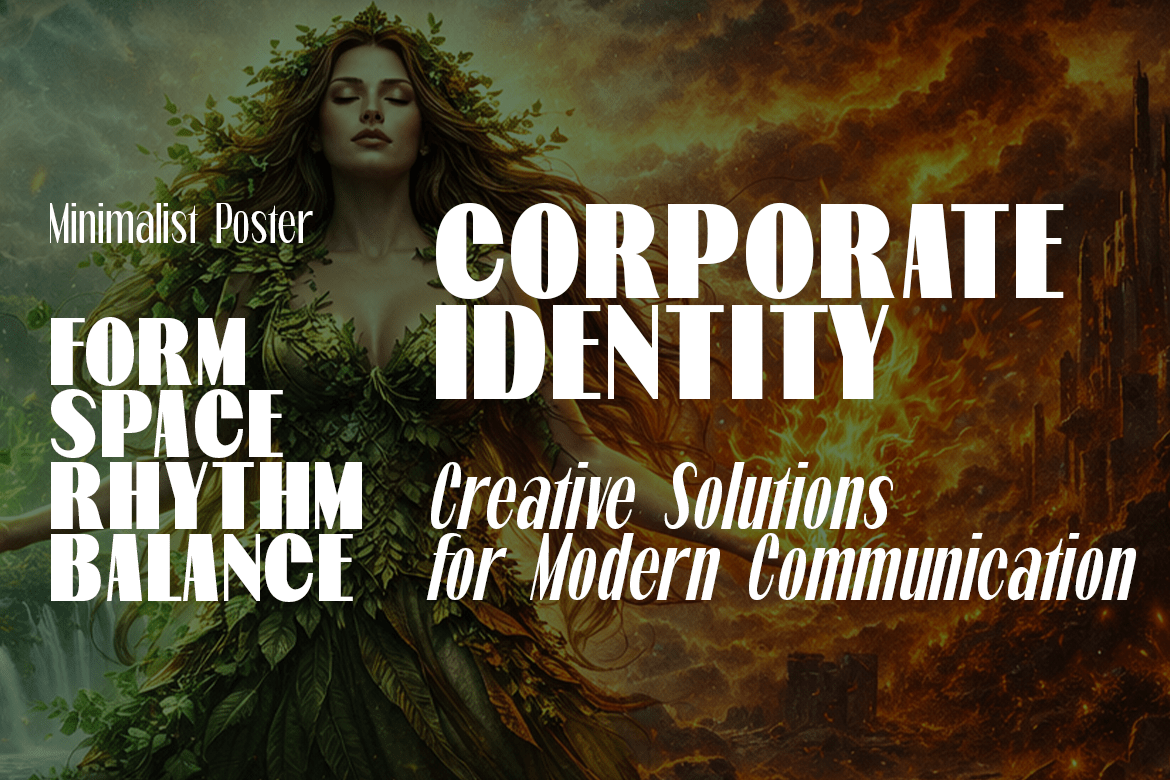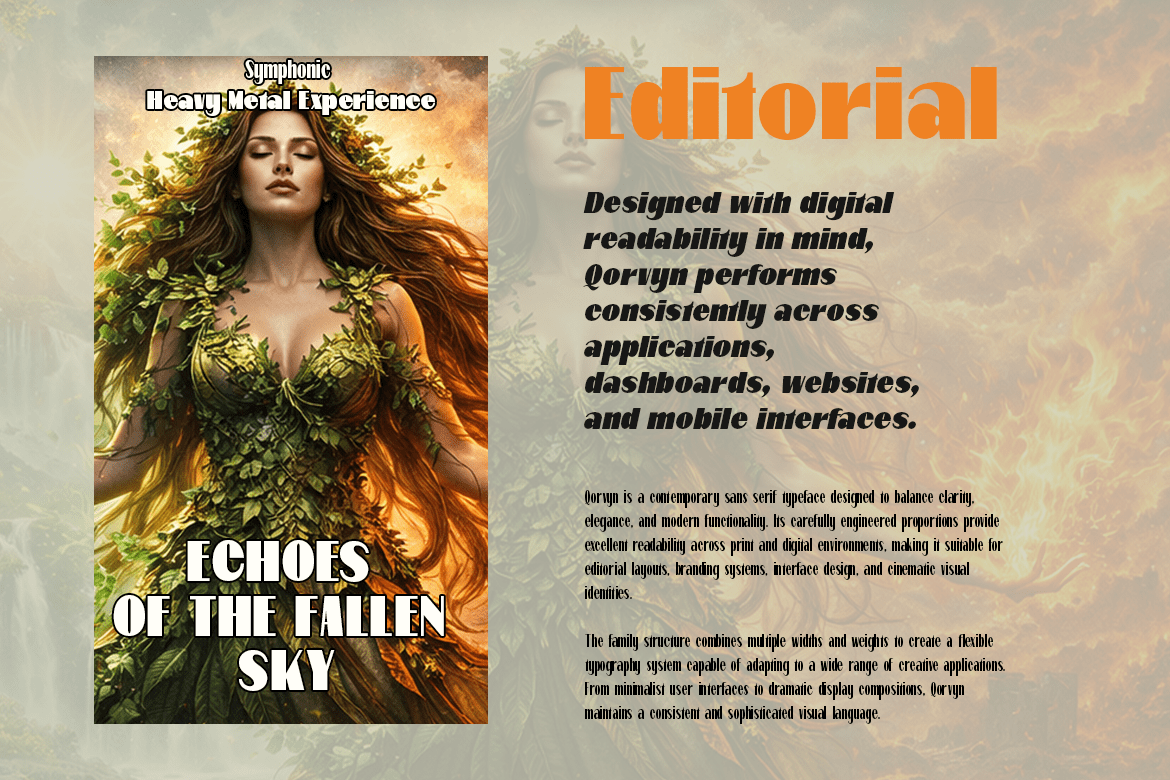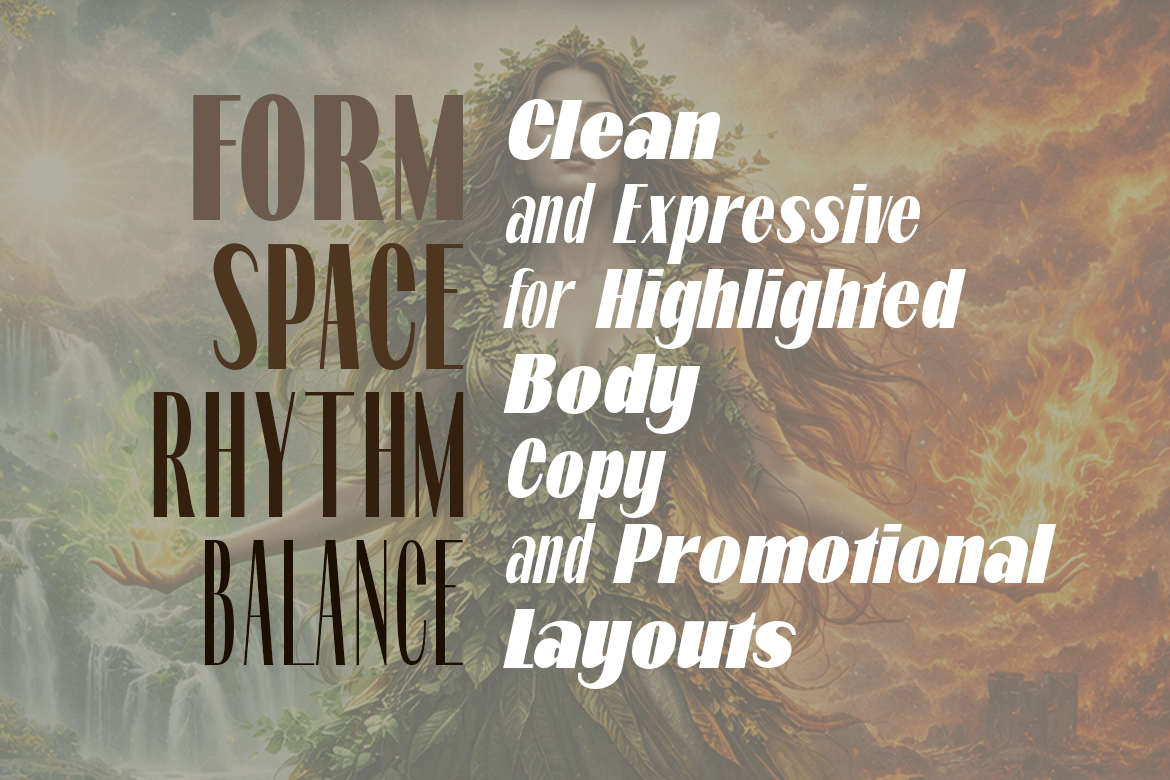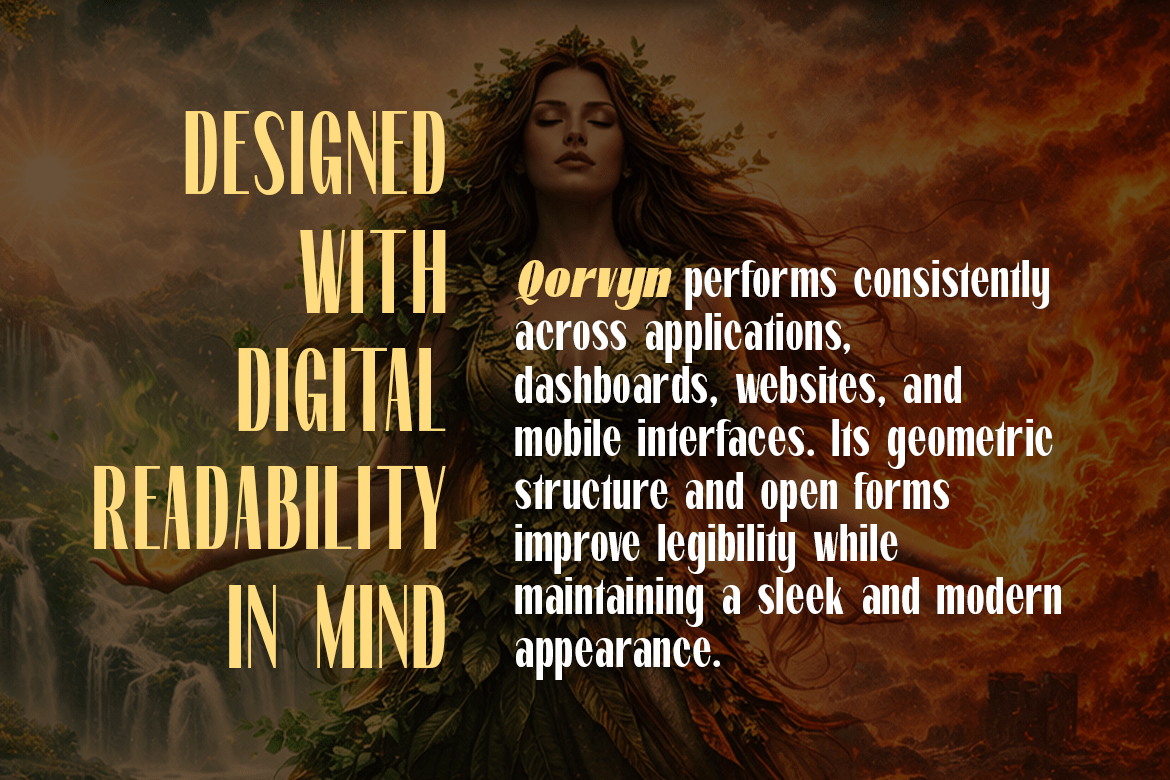
Qorvyn Extra Condensed
Qorvyn Extra Condensed is a modern sans-serif typeface family crafted for bold visual impact and efficient space usage. Designed with a sleek extra-condensed structure, it delivers strong vertical rhythm, sharp geometry, and exceptional readability in tight layouts. The family includes 18 styles — 9 upright and 9 italic — ranging from delicate thin weights to commanding black styles, allowing versatile use across branding, editorial headlines, posters, interfaces, sports graphics, packaging, and futuristic visual identities.
Its upright styles present a clean, confident, and highly structured appearance, while the italic counterparts introduce dynamic motion and energetic flow without sacrificing clarity. Qorvyn balances contemporary minimalism with aggressive character, making it suitable for both professional and experimental typography projects. With consistent proportions, refined spacing, and strong personality, Qorvyn Extra Condensed is built to stand out in large display settings while remaining functional in compact compositions.